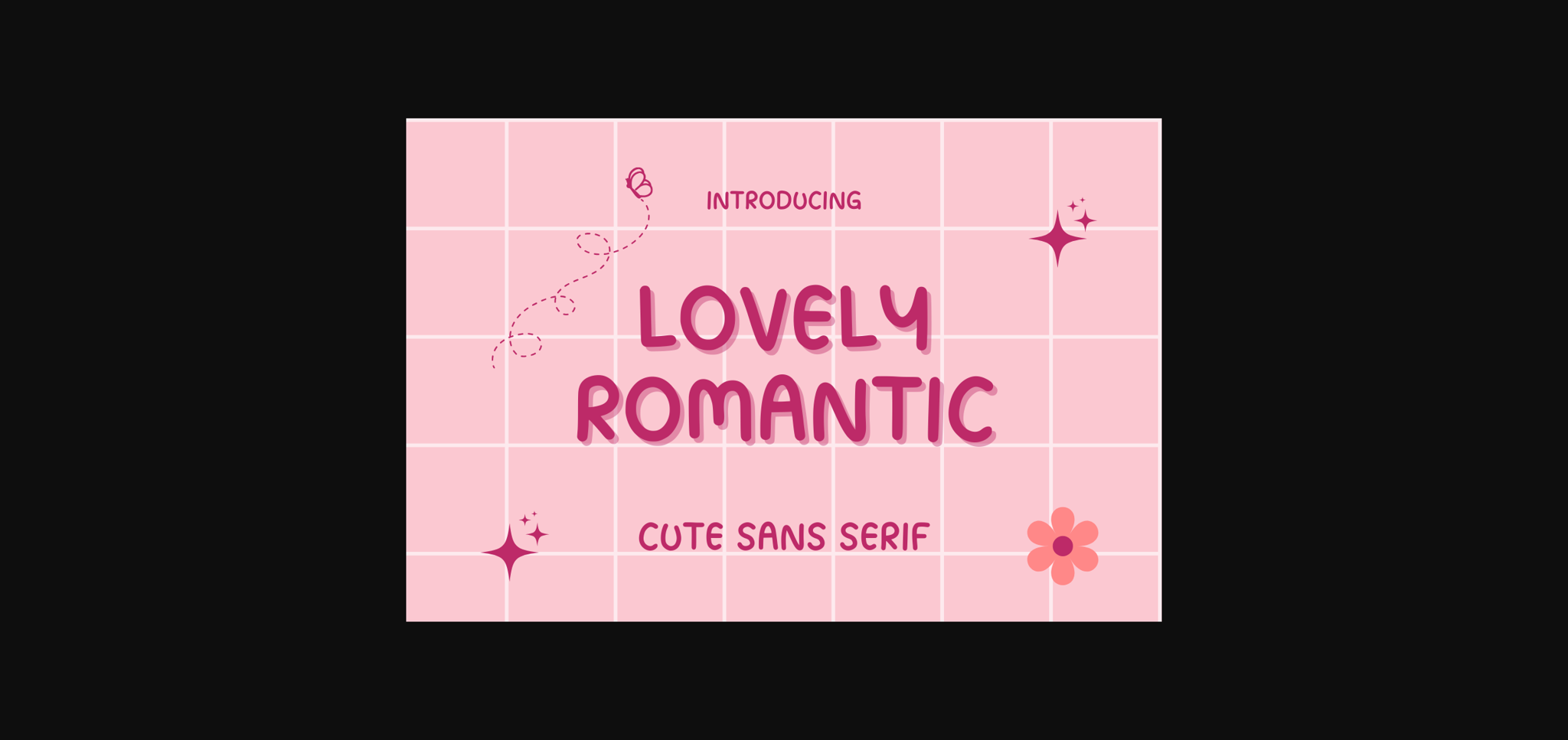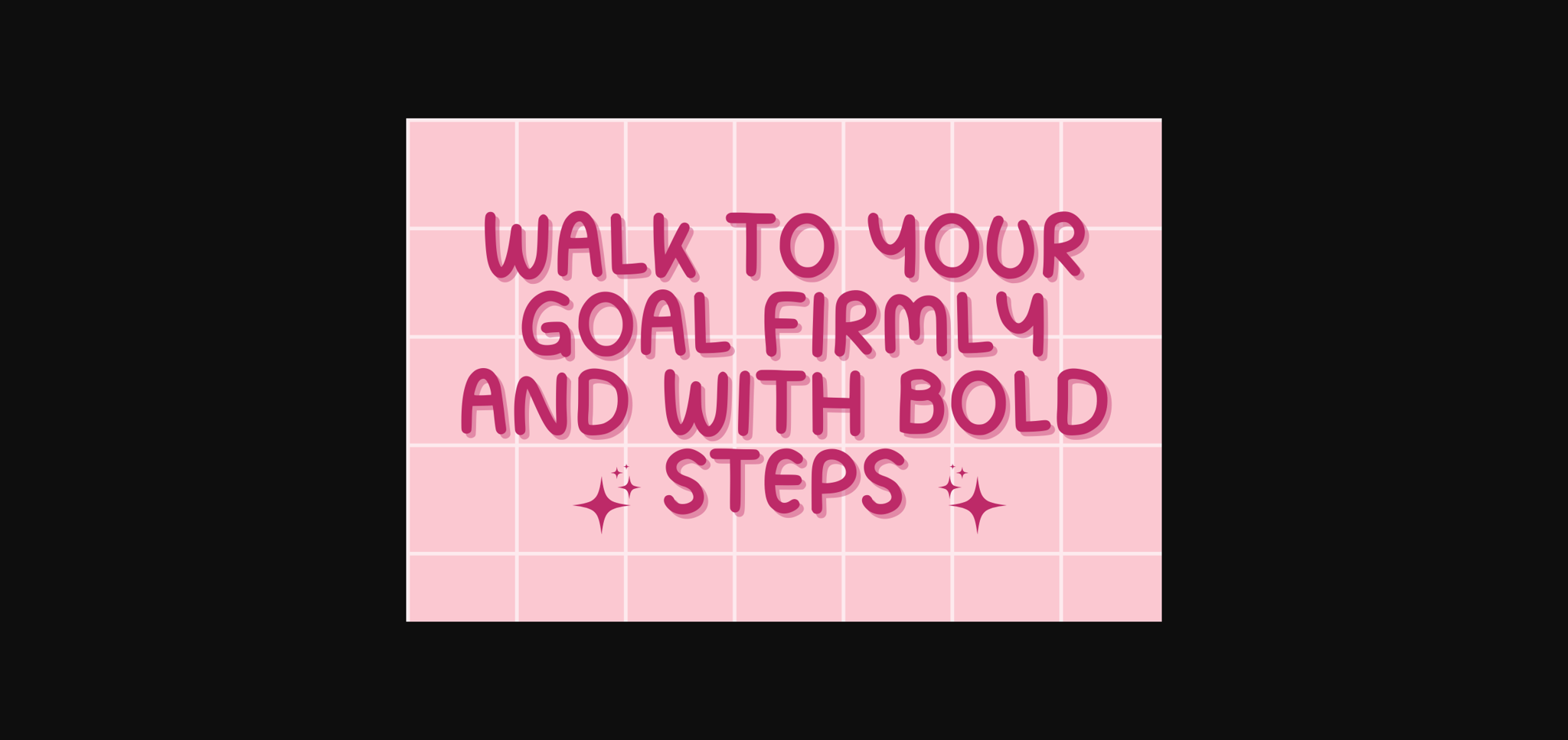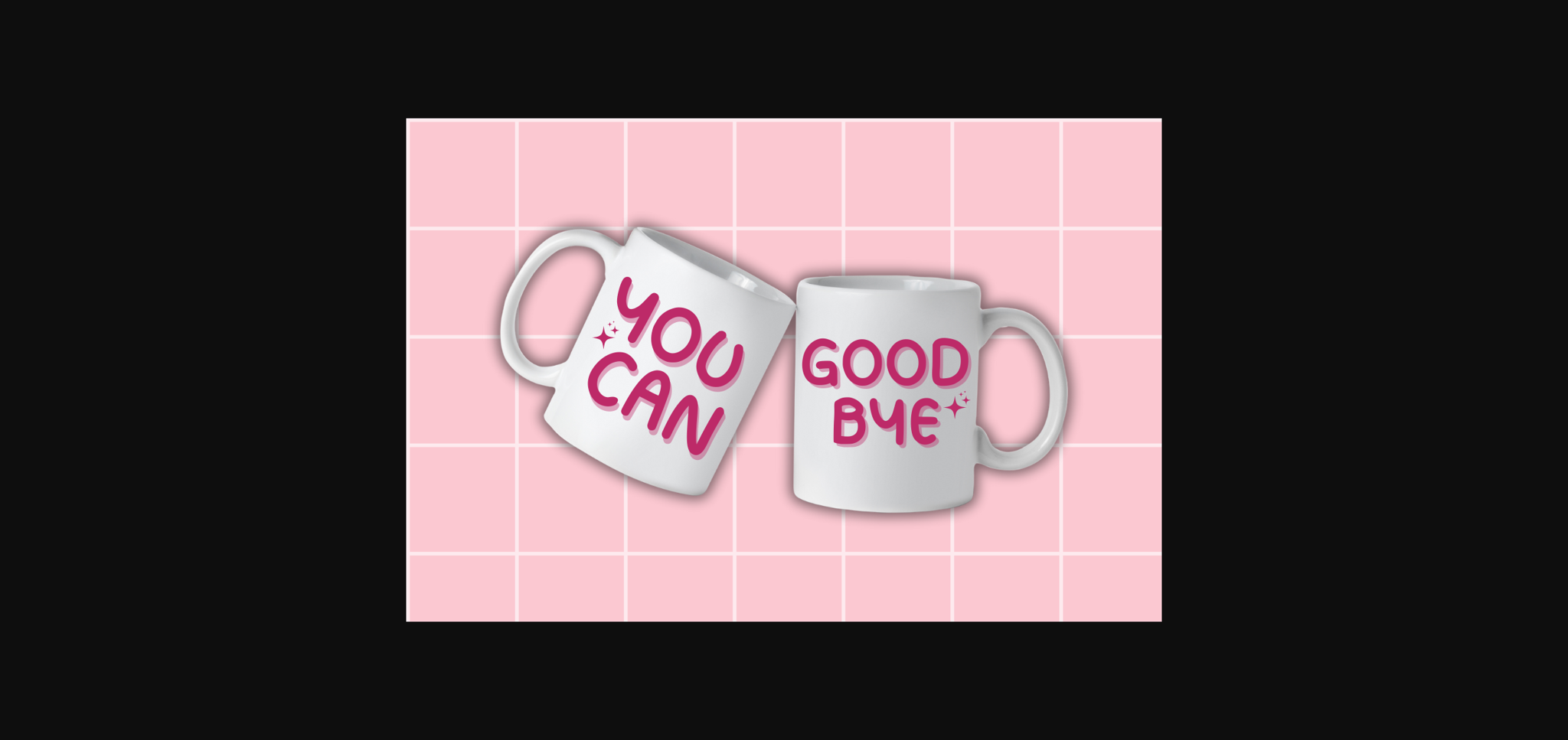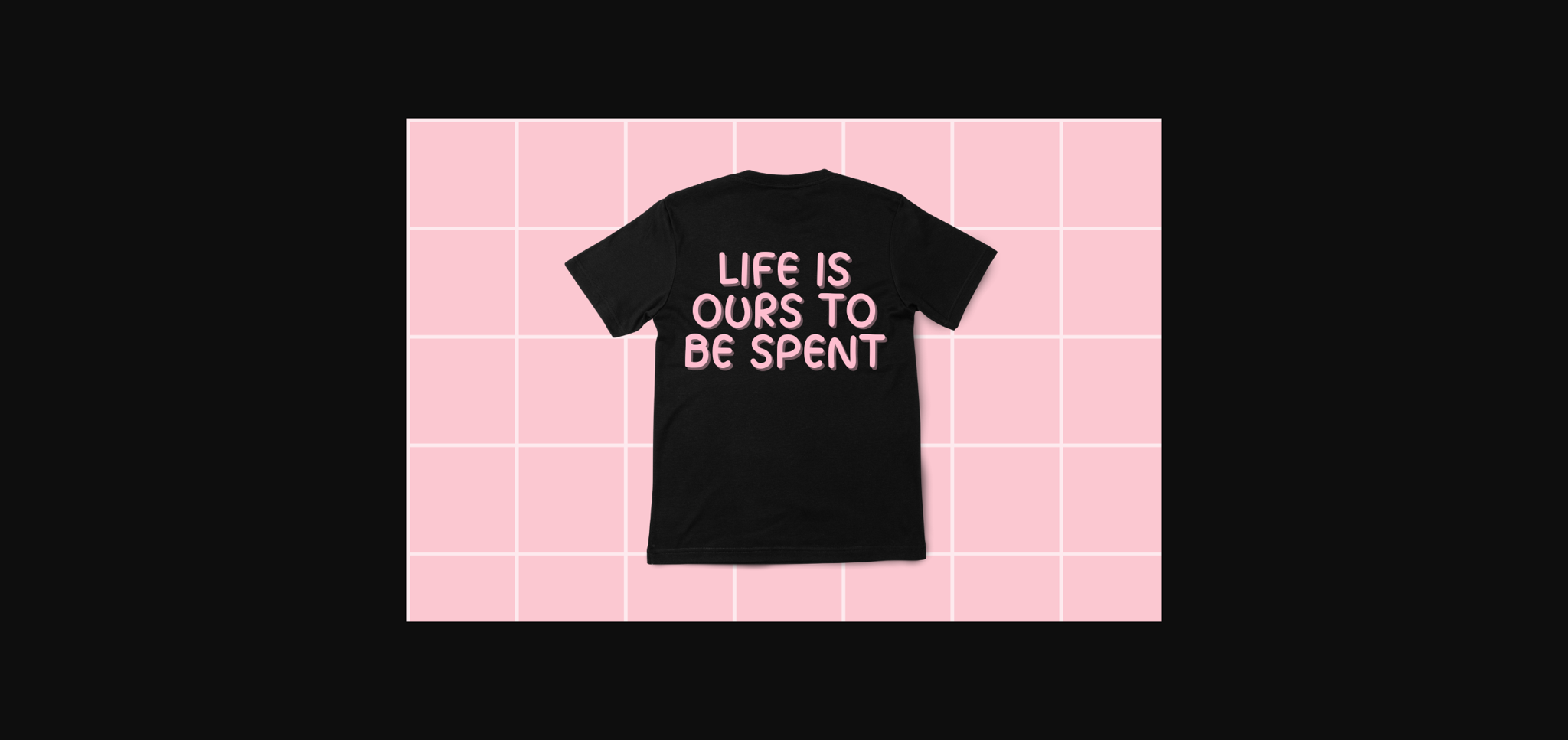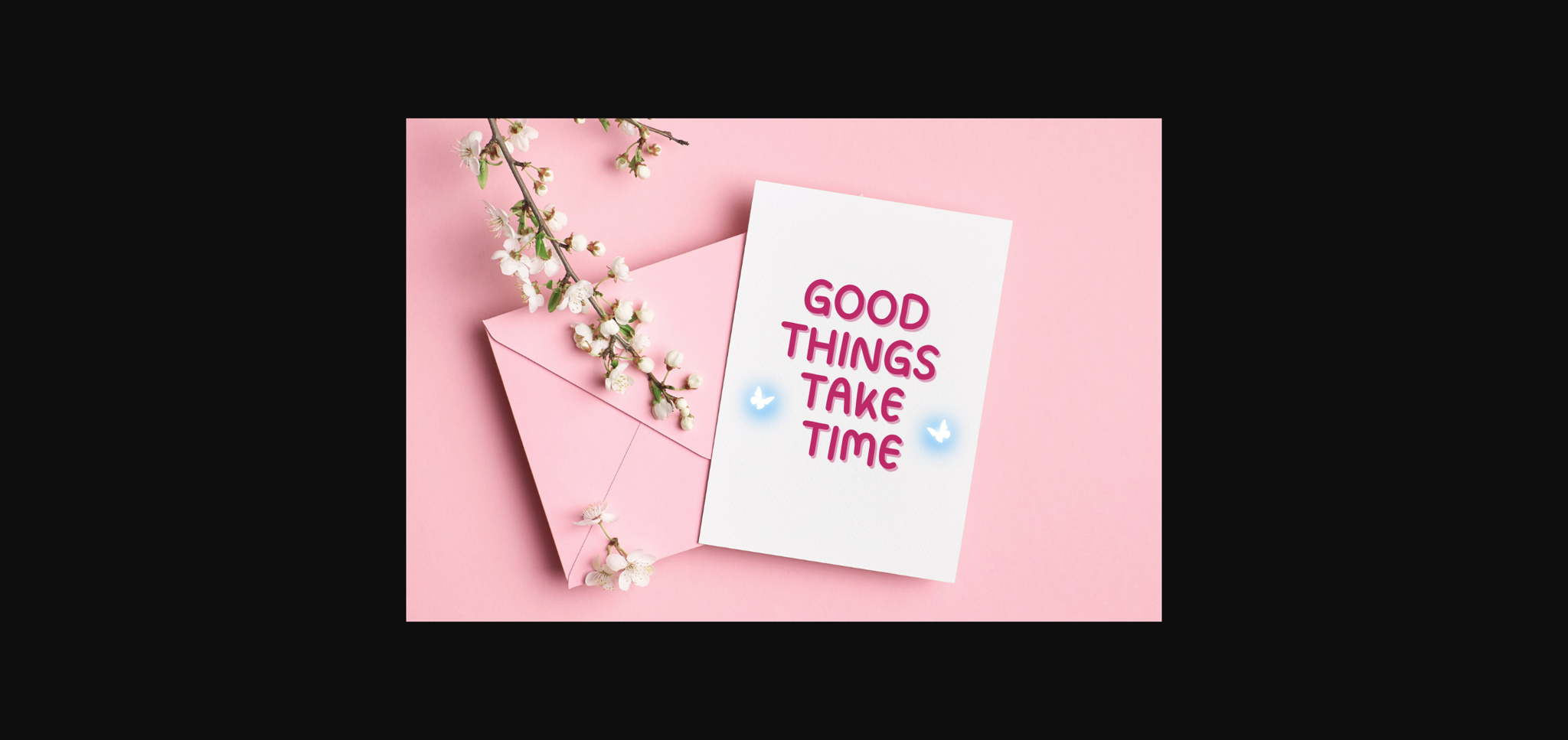
About Lovely Romantic Font
Lovely Romantic is a cute and adorable sans serif font. Perfect for social media, posters, stickers, notebooks and so much more.